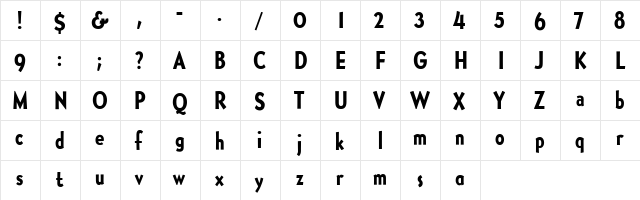
GolucianBoldCondensed Regular
Design Context for GolucianBoldCondensed Typeface
GolucianBoldCondensed offers clean, dependable letterforms without strong stylistic allegiance, making it a practical choice for designers who need flexibility. Its bold stroke weight gives it real presence on the page. Its narrow stance lets it pack a punch even in space-constrained designs.